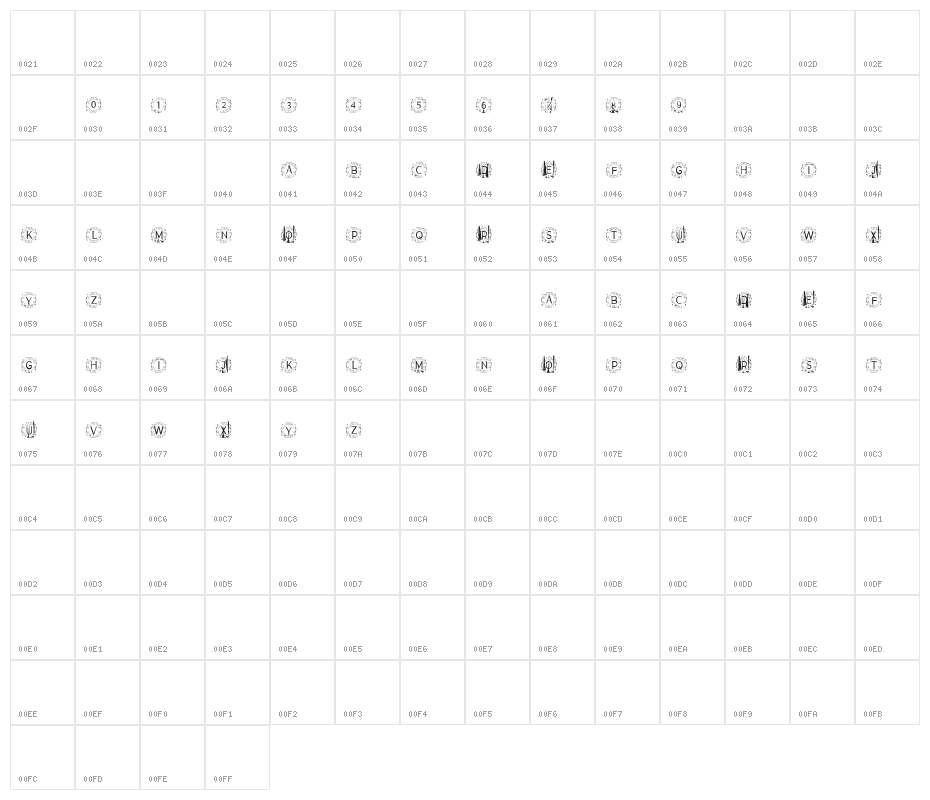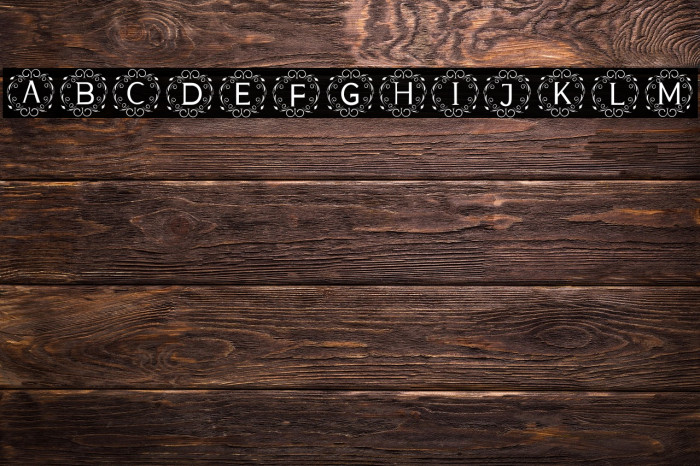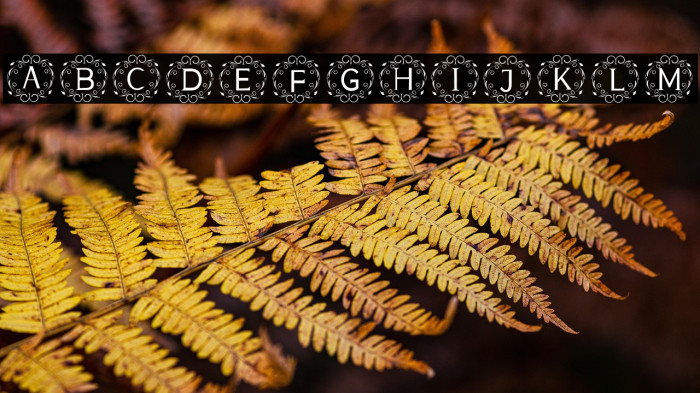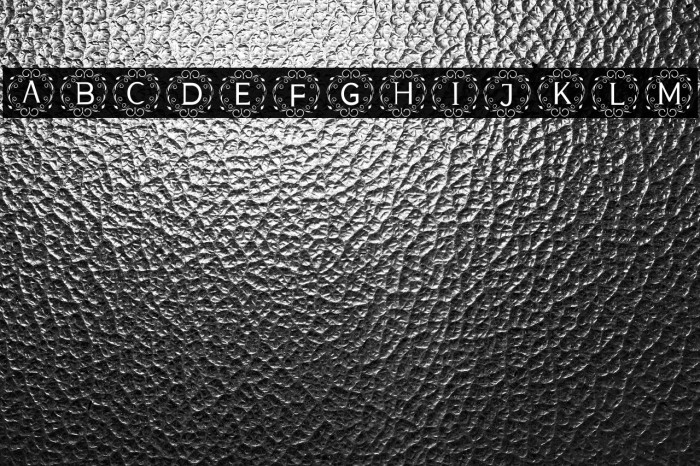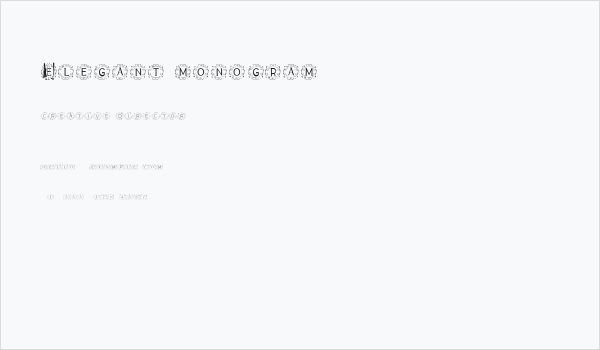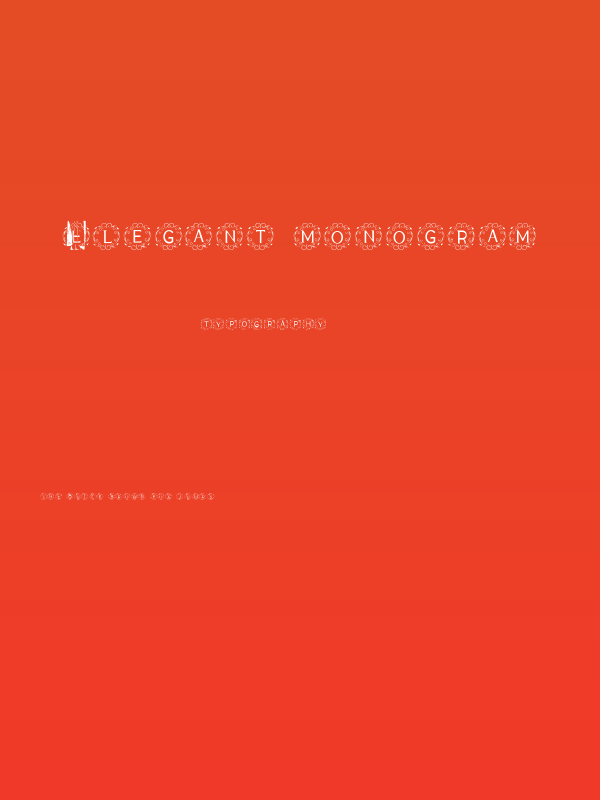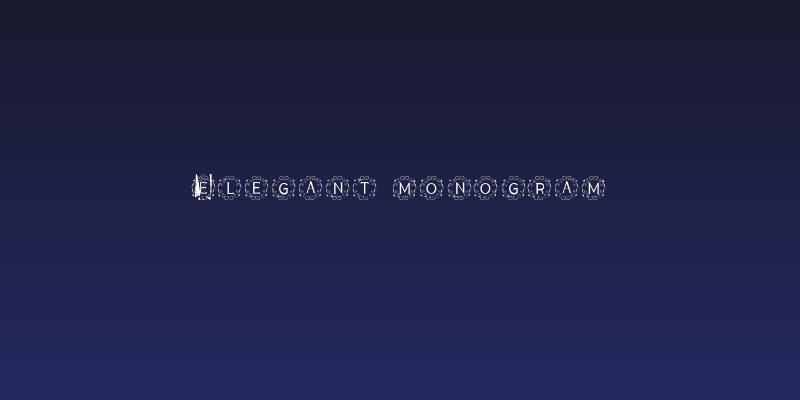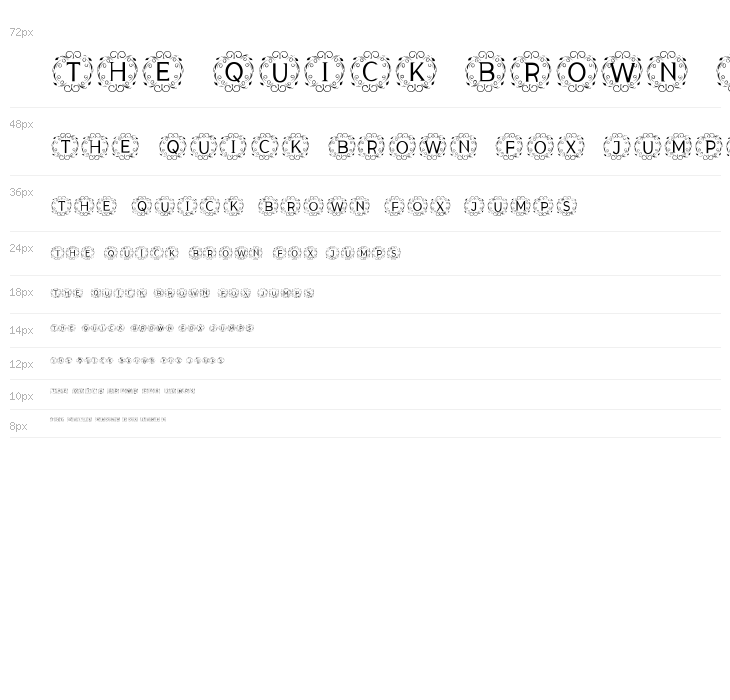
ELEGANT MONOGRAM Font
ELEGANT MONOGRAM Description
This font features an elegant and decorative style, characterized by uppercase letters encased in intricate circular floral patterns. Each character is centered within a detailed ornamental border, creating a sophisticated and luxurious appearance. The design is consistent across all letters and numbers, providing a cohesive and visually appealing look. The font's decorative nature makes it ideal for projects that require a touch of elegance and refinement. The intricate details in the border add a sense of artistry and craftsmanship, making it suitable for high-end branding or formal invitations.
| Use Case | Logos, Invitations, Decorative elements |
| Proposed Projects | Ideal for wedding invitations, luxury branding, monogram designs, and decorative signage. |